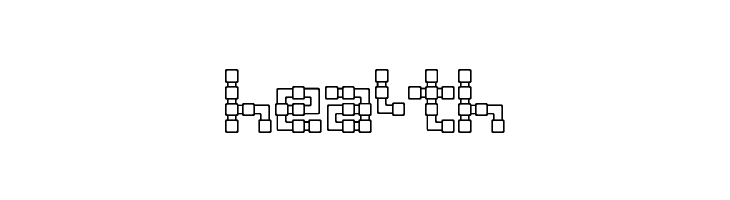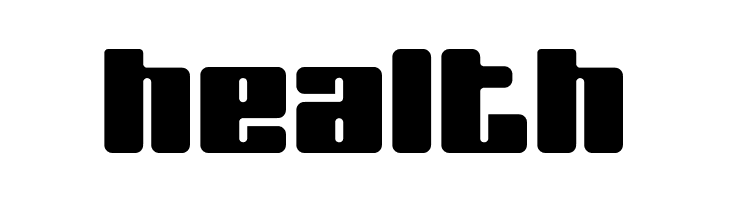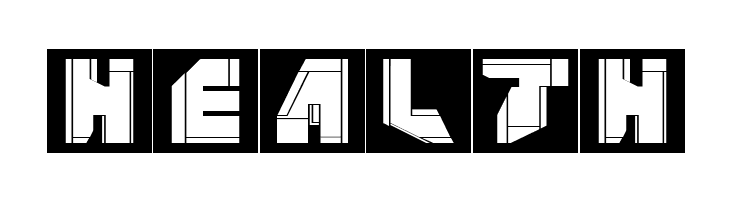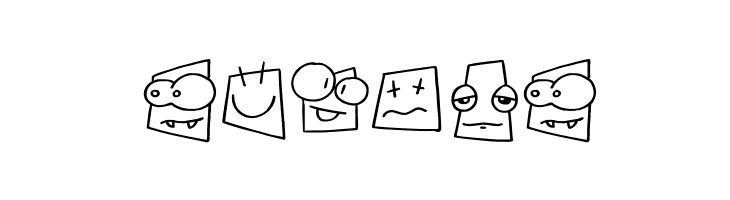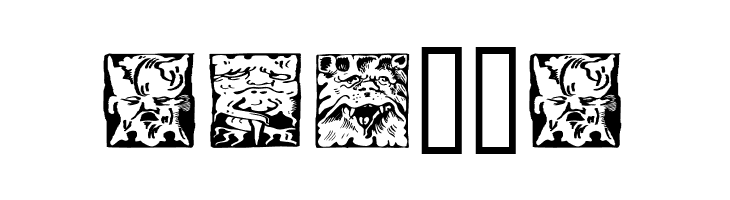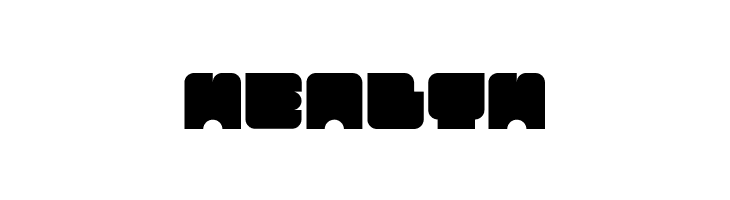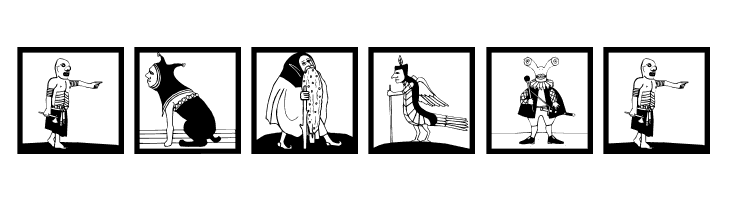
( Fonts by DairyProduct )
A geometric, squared font with a modern, digital aesthetic.
A bold, blocky font with characters enclosed in squares, offering a playful and artistic style.
A decorative font with whimsical square illustrations, perfect for playful designs.
( KineticPlasma Fonts - Robert Jablonski - cannotintospacefonts.blogspot.com )
A playful, hand-drawn font with a squared outline and whimsical style.
( Monofonts - www.monofonts.com )
A bold, geometric font with square, block-like shapes and a modern industrial feel.
( MrtheNoronha - Daniel Noronha )
A decorative font with a square, grid-like pattern creating a pixelated effect.
( iMM - Gianka Petracco - www.instagram.com/immcreativity/ )
A modern, geometric font with bold, squared-off characters.
( !Exclamachine Type Foundry - exclamachine.com/ )
A bold, geometric font with characters enclosed in square outlines, offering a modern and mechanical look.
( Addax Designs - www.nt-p.net/adx/index.html )
A geometric, modular font with a square, digital appearance.
( Area 031 - web.archive.org/web/20020121193136/www.geocities.com/sunsetstrip/club/8011/fonts.html )
A bold, geometric font with square and circular elements, ideal for modern designs.
( Fonts A Go-Go - www.postmodernvillage.com/fonts.html )
A geometric, squared font with thin strokes and a modern, minimalistic style.
( Jorge Sans Alsina - newlifetypeface.wordpress.com/ )
A geometric, square-based font with a digital, pixelated style.
( Fonts by EvasUniqueFonts )
Ornate and decorative square frames with intricate patterns.
A pixelated, square-shaped italic font with a digital, retro aesthetic.
A bold, geometric font with characters enclosed in squares, offering a modern and structured look.
A bold, 3D geometric font with characters enclosed in squares, offering a modern and striking appearance.
A pixelated, square dot matrix font with a digital and retro feel.
A bold, geometric font with square, block-like characters.
A bold, geometric font with a square, blocky design.
A geometric, futuristic font with square and angular letterforms.
A bold, geometric font with a strong, square structure and modern aesthetic.
( Fonts by TypeType Foundry )
A geometric, modern font with angular, squared-off letterforms.
( Fonts by TypeType Foundry )
A bold, geometric font with a square-like, futuristic design.
( Fonts by TypeType Foundry )
A geometric, modern font with square-like characters and clean lines.
( Fonts by TypeType Foundry )
A bold, geometric font with a modern, square-like design.
( Fonts by TypeType Foundry )
A bold, geometric font with a modern and square-like design.
( Fonts by TypeType Foundry )
A geometric, modern font with a square-like, technical design.
( Fonts by casualized )
A bold, geometric font with square and rectangular shapes, enclosed in thick outlines.
( Fonts by Ultrabold Kommunikationsdesign )